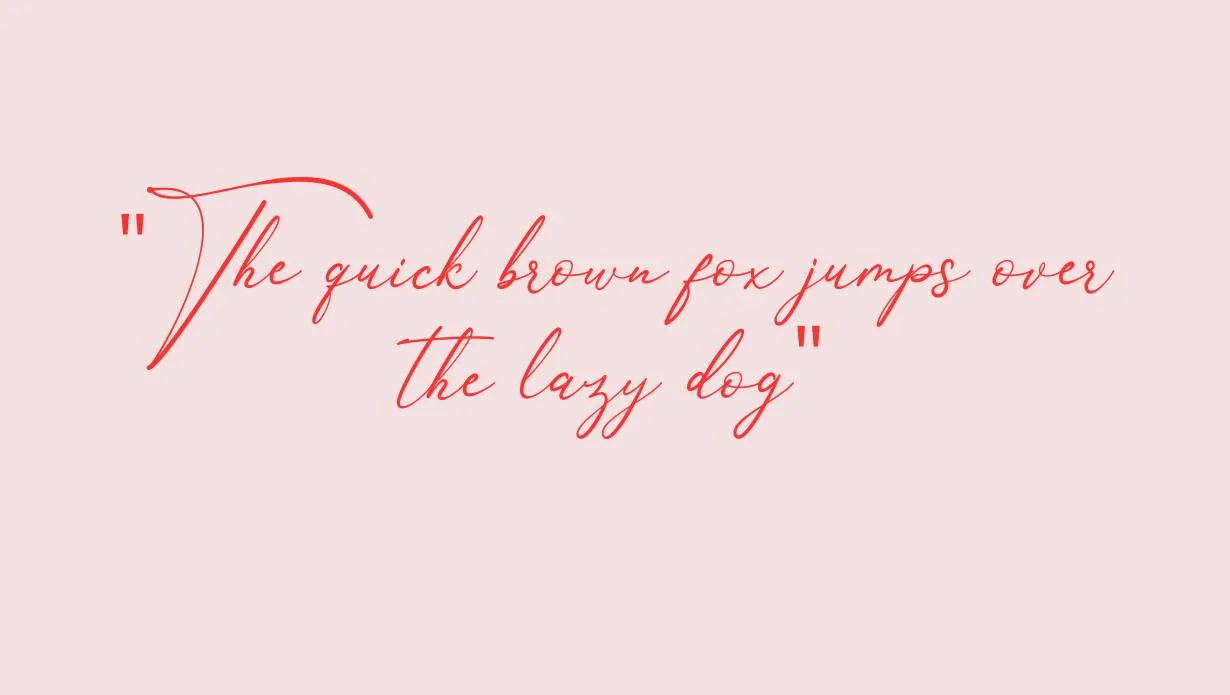
The Anthoni Signature font is like a personal touch in letters. With its elegant and handwritten design, it’s ideal for crafting personalized invitations, designing beautiful cards, or adding a touch of sophistication to your projects.
This font has a moderate weight and standard width, making your words look graceful and refined. Picture using the Anthoni Signature font for a wedding invitation, turning your text into a signature of love.
| Name | Anthoni Signature Font |
| Designer | Kotak Kuning Studio |